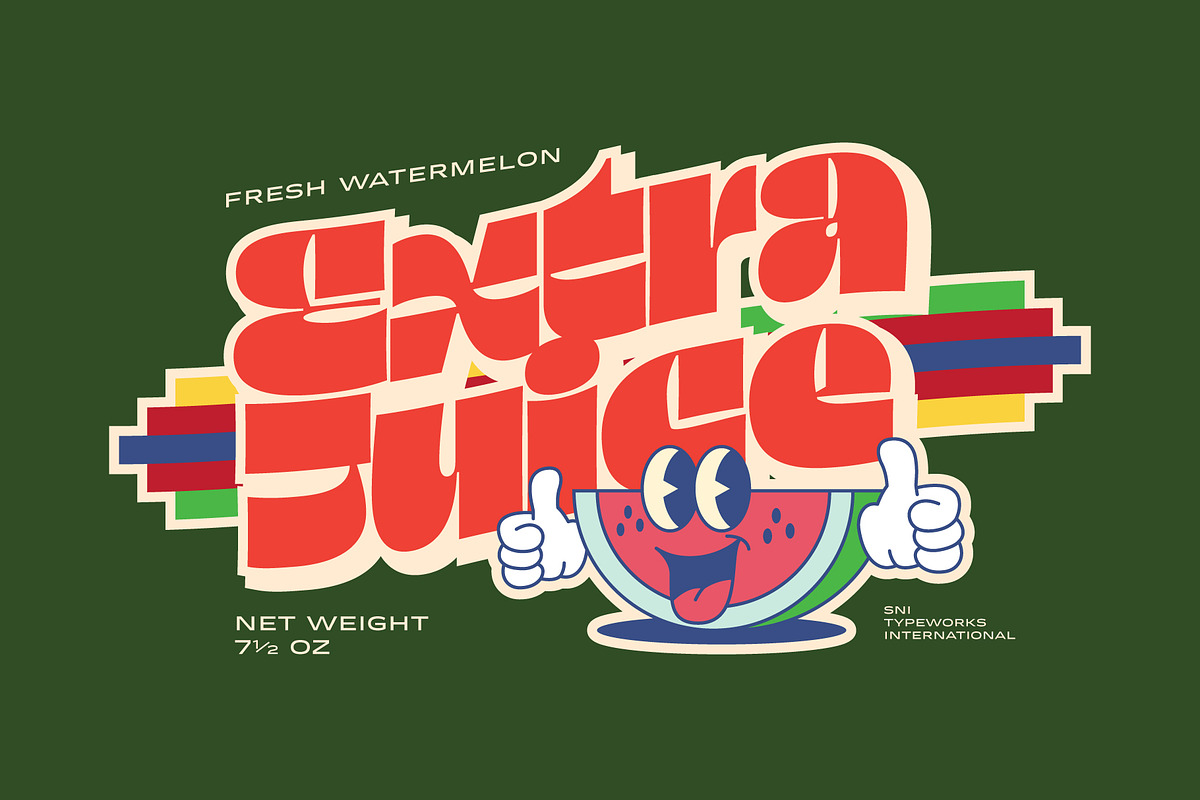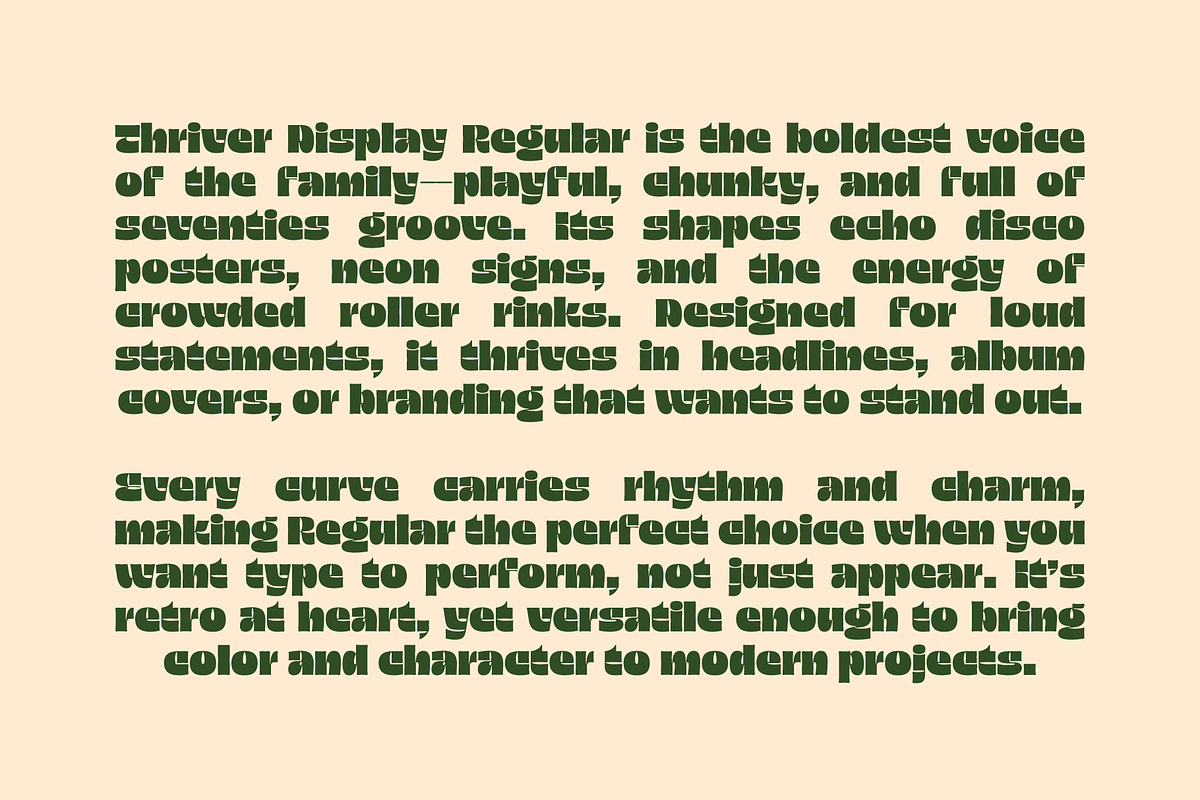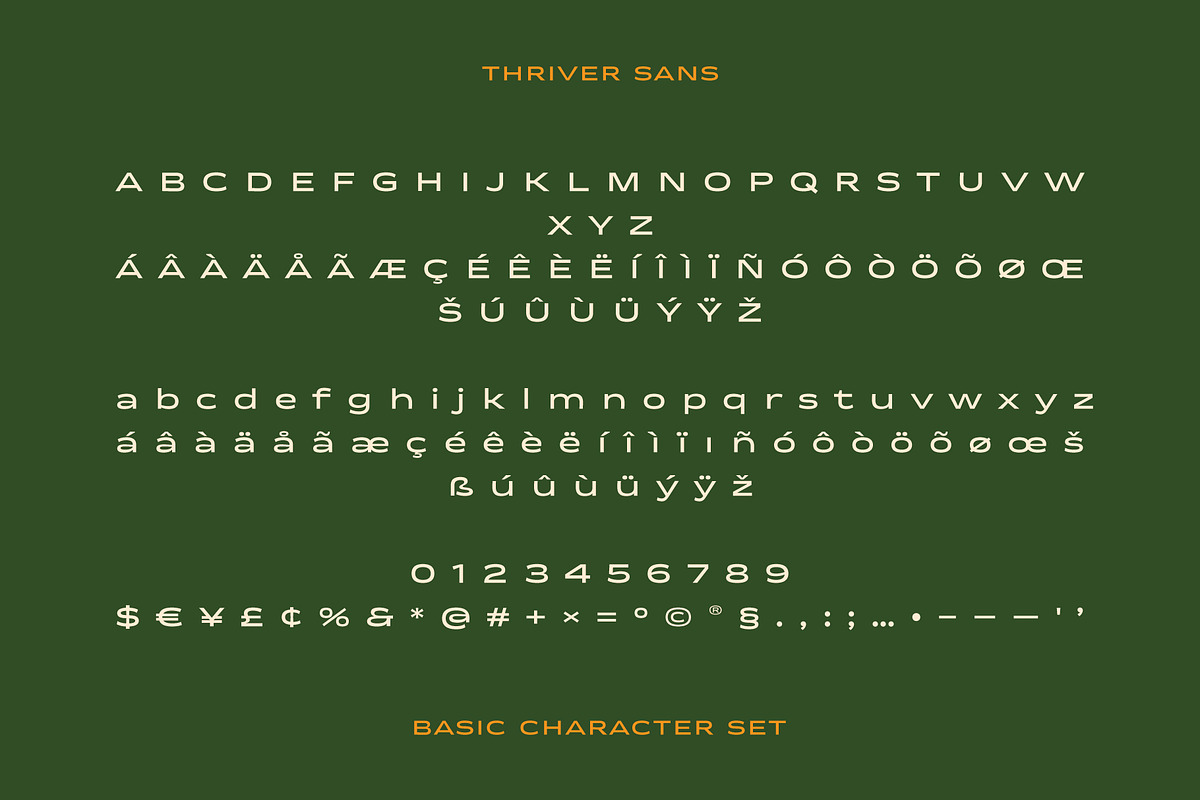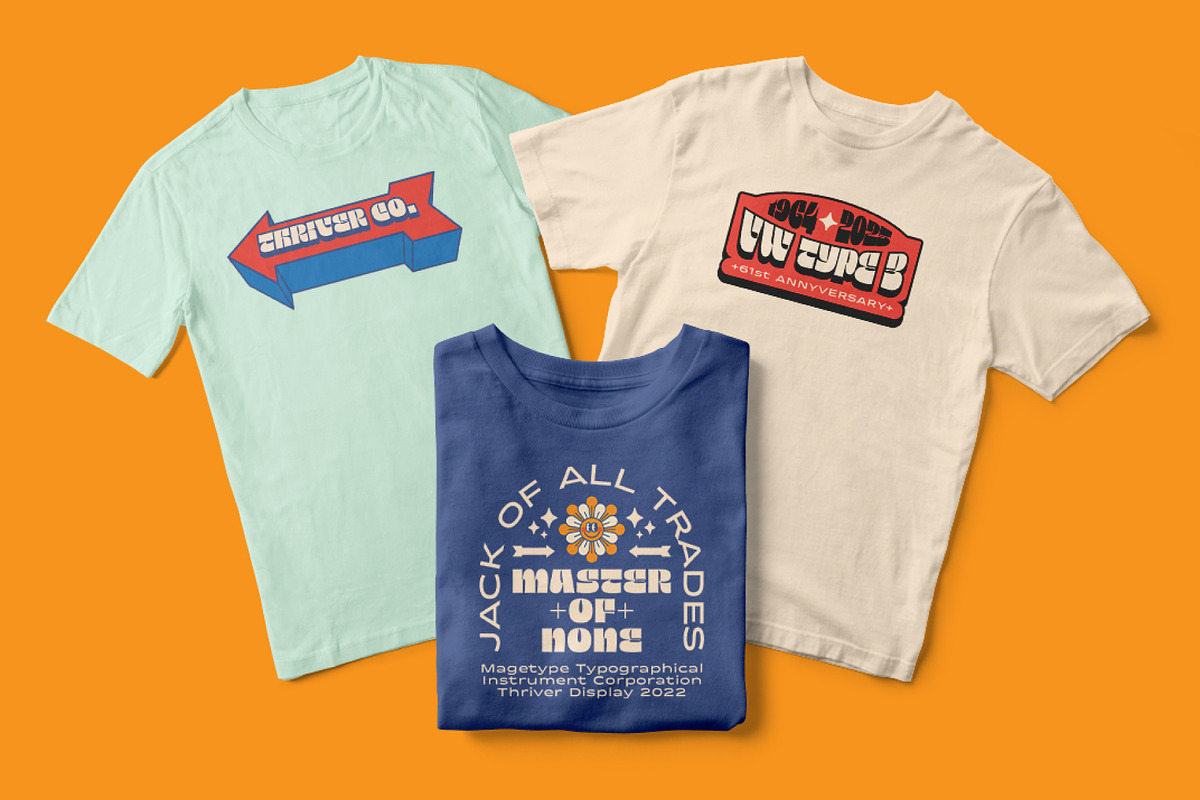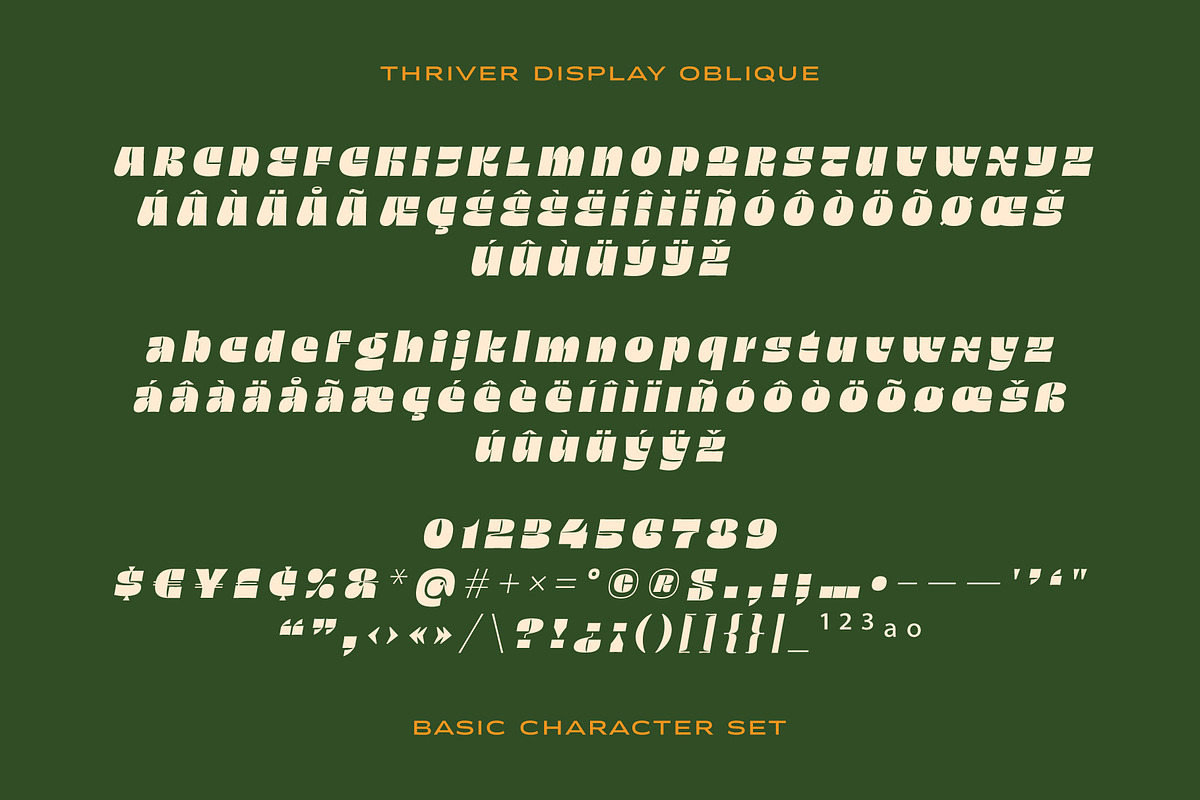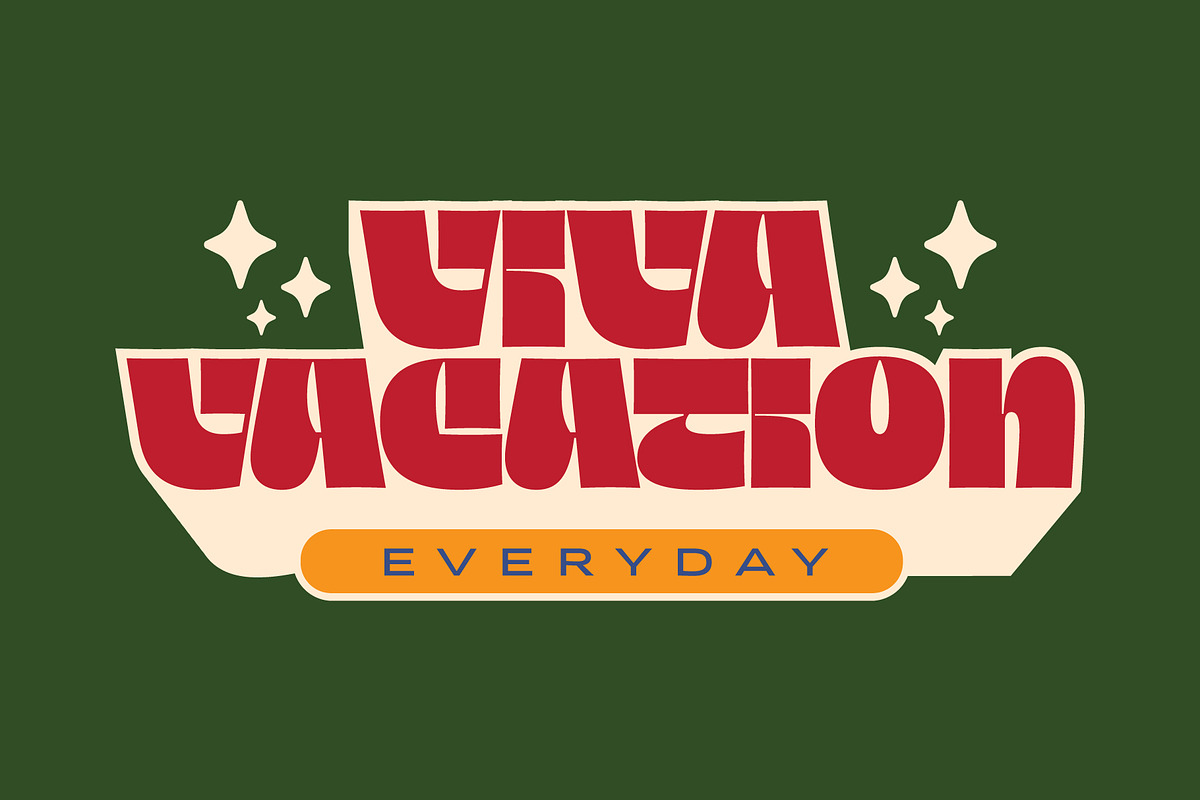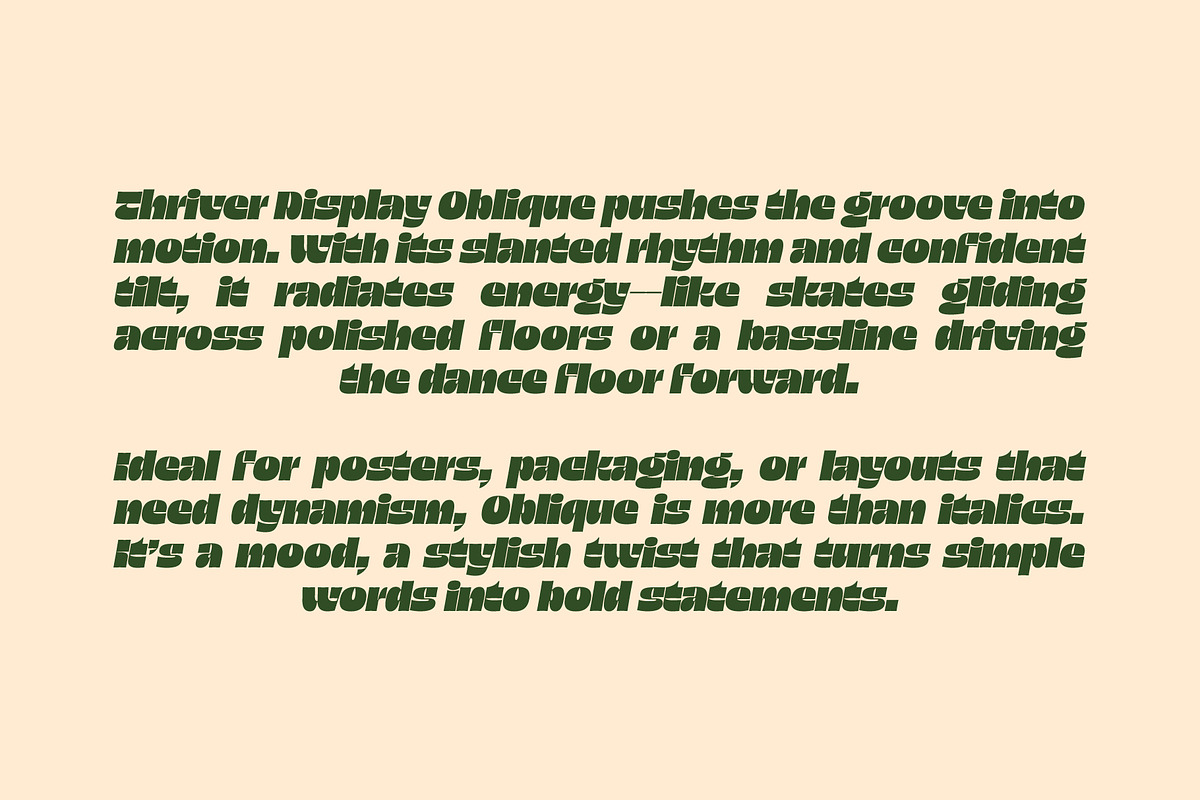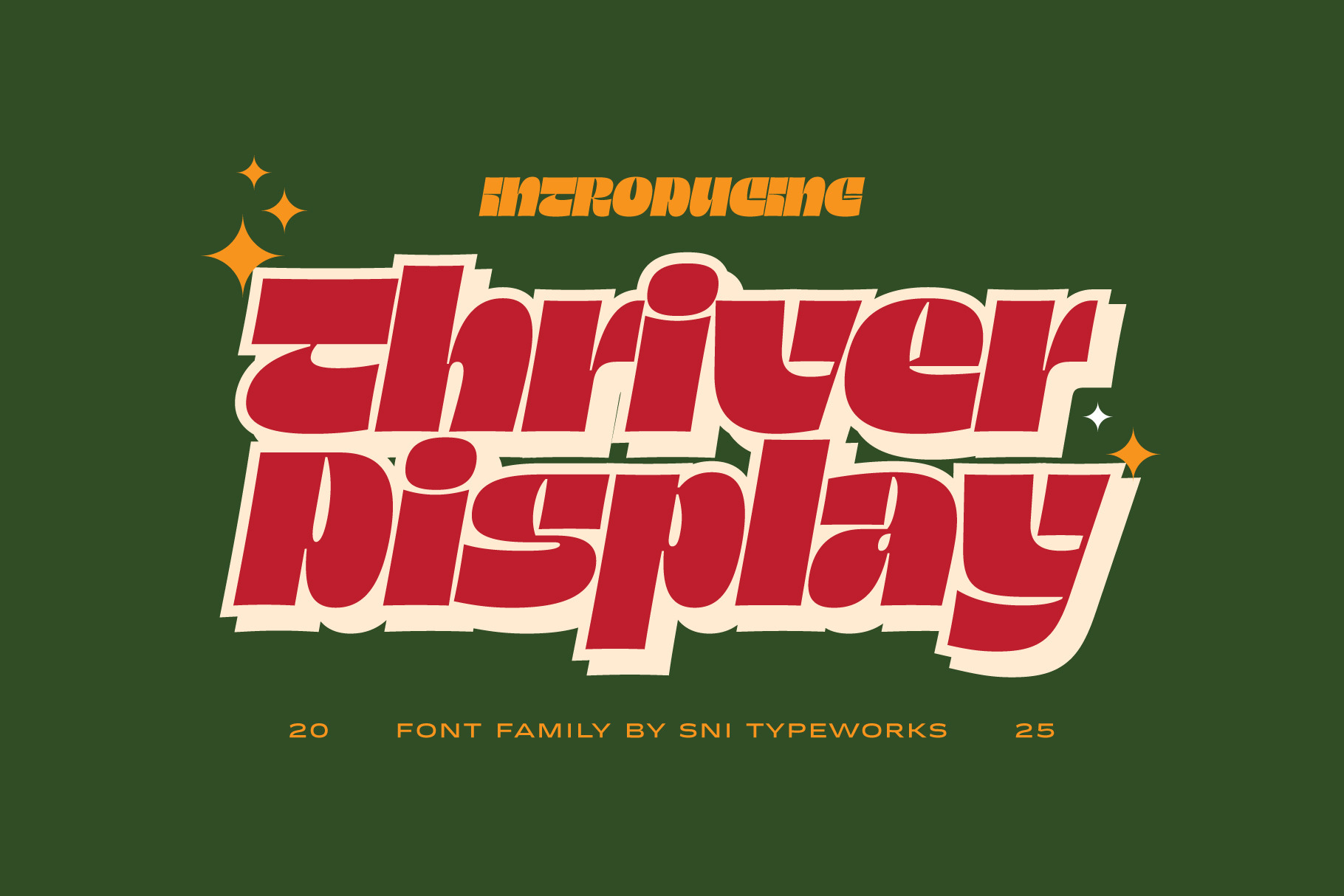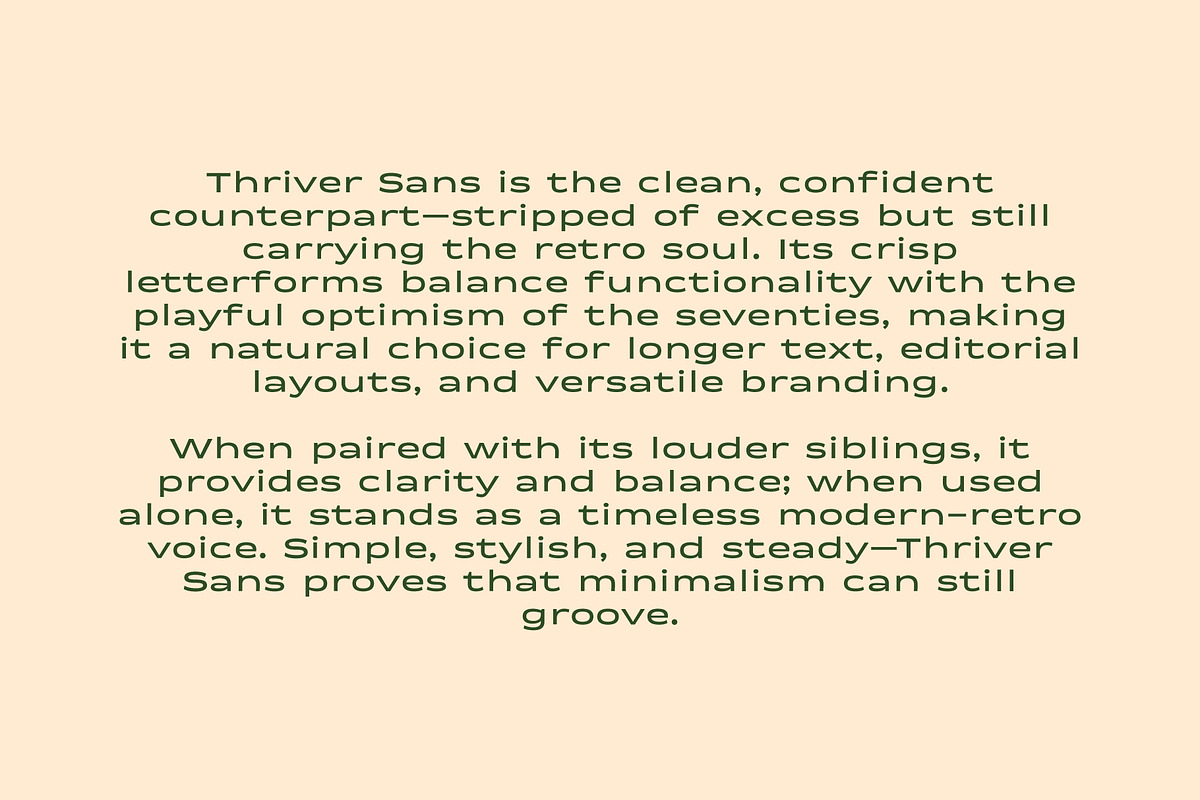
Thriver – Retro Display Font Family
Thriver Font Family brings back the bold groove of the seventies with a modern twist—playful, chunky, and full of character. Perfectly crafted for loud headlines, funky posters, disco-inspired branding, and any project that needs to stand out with style.
This package includes 3 styles:
- Thriver Display Regular – bold and chunky, inspired by disco and retro poster lettering.
- Thriver Display Oblique – a slanted, dynamic version that adds movement and energy.
- Thriver Sans – a clean and versatile companion that keeps the retro soul but works perfectly for longer text, editorial layouts, or branding.
Ideal for retro posters, apparel, packaging, album covers, logos, social media graphics, or any design project that needs a vintage yet modern groove.